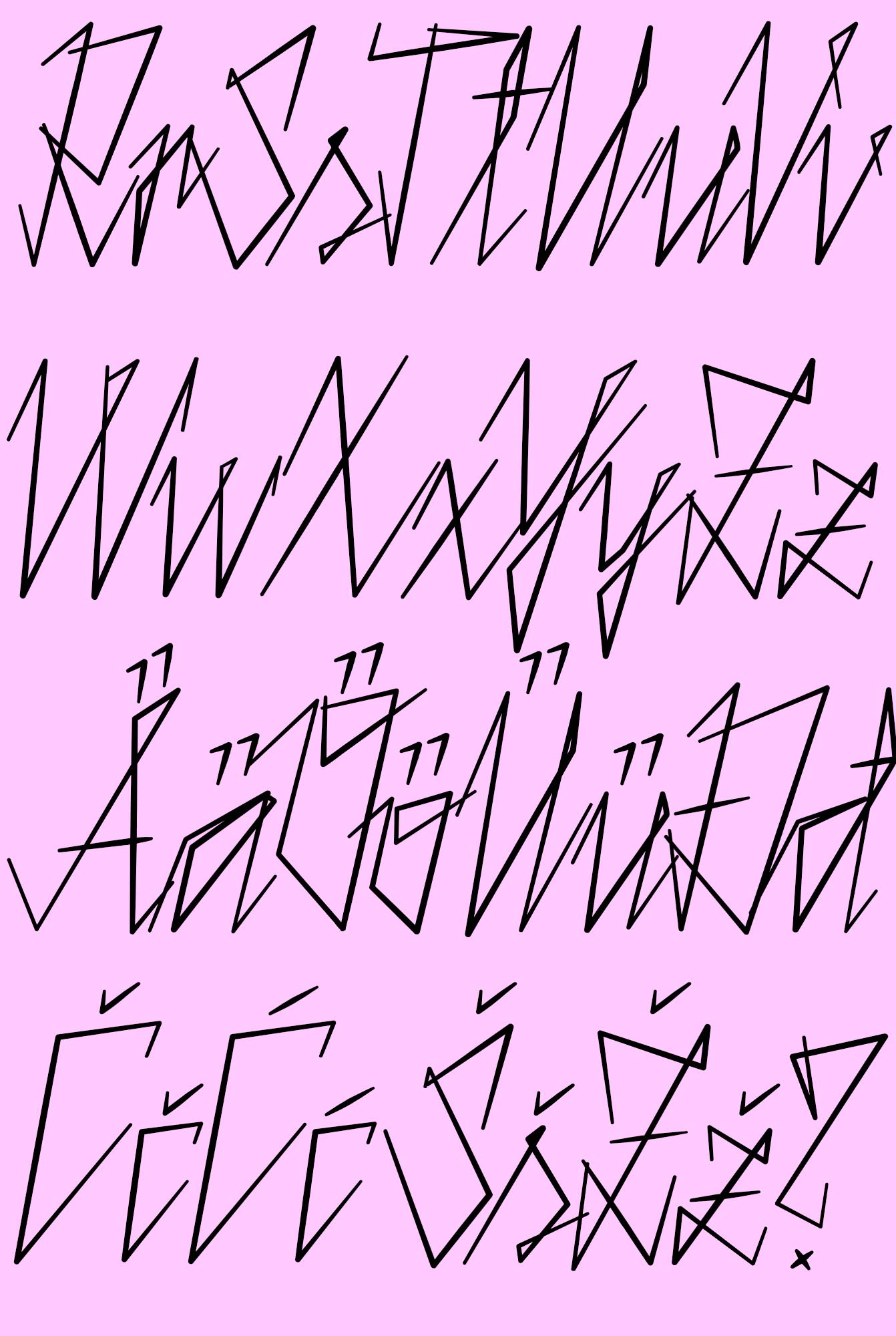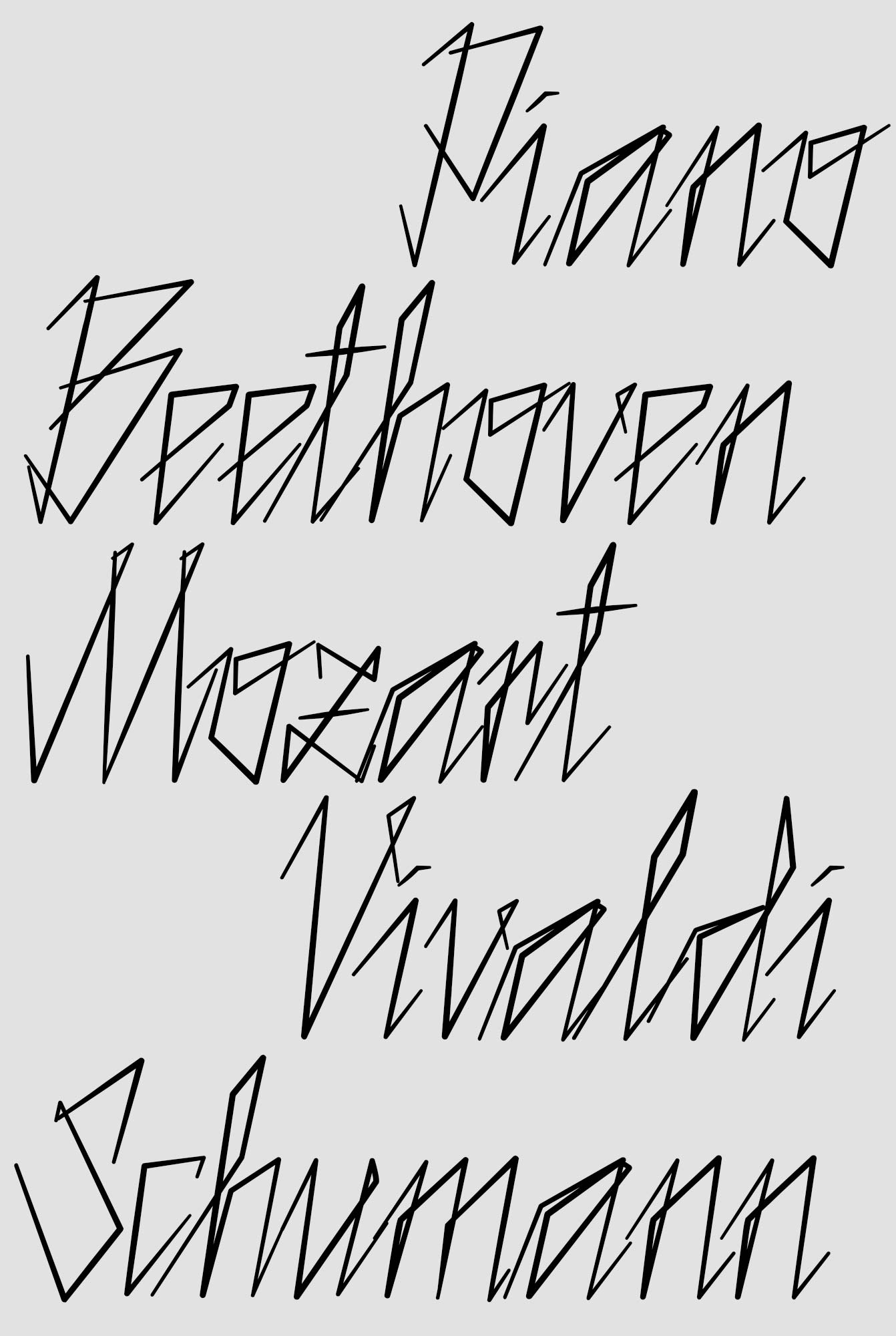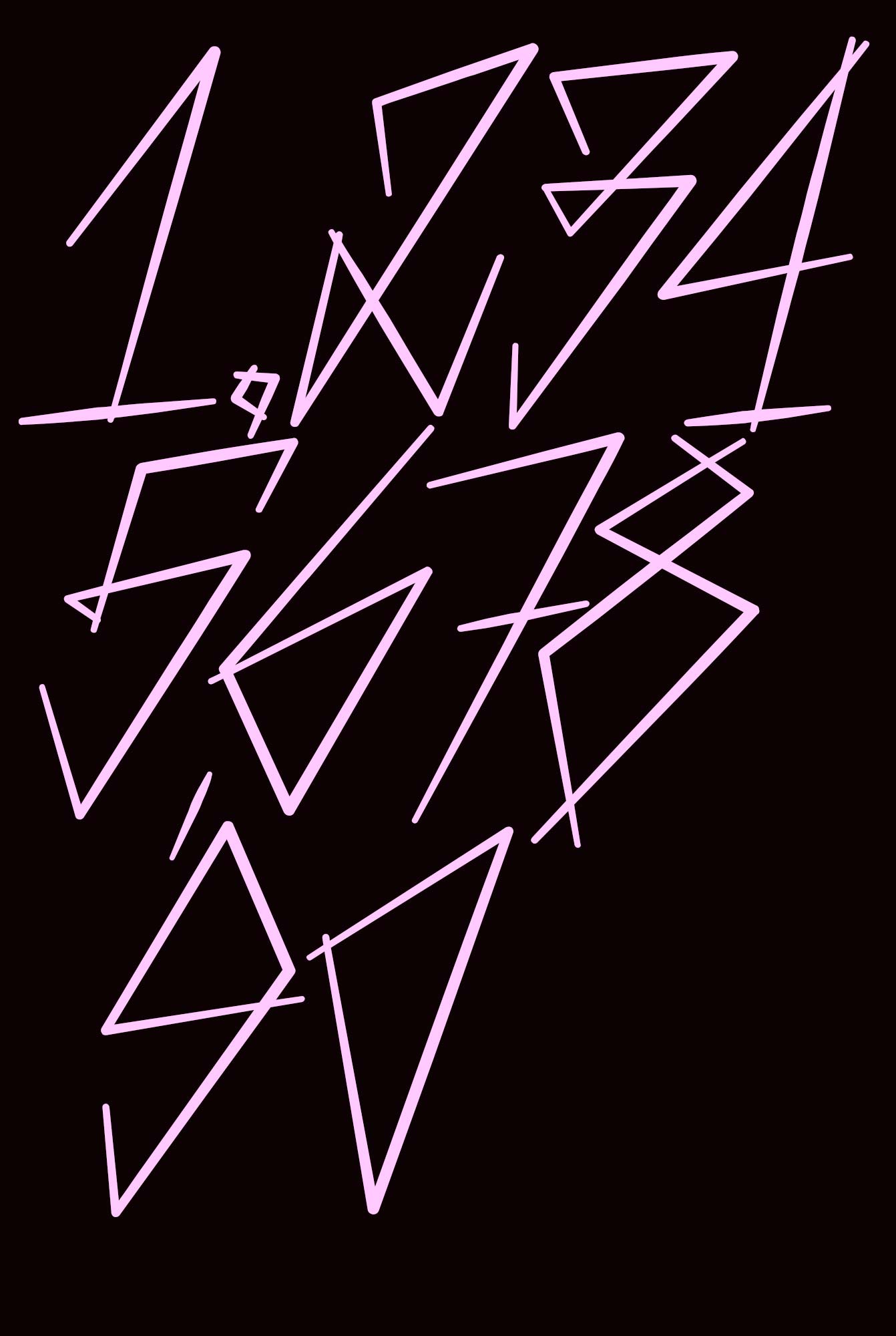
What was originally intended for a sheet music book is now available to everyone. The Piano typeface is strongly inspired by piano music and the movement of fingers on the keys. Its rhythm—sometimes fast, sometimes slow—is reflected in its design. The typeface supports both German and Serbian characters and also includes Uppercase, Lowercase and selected ligatures that are essential to its distinctive style.